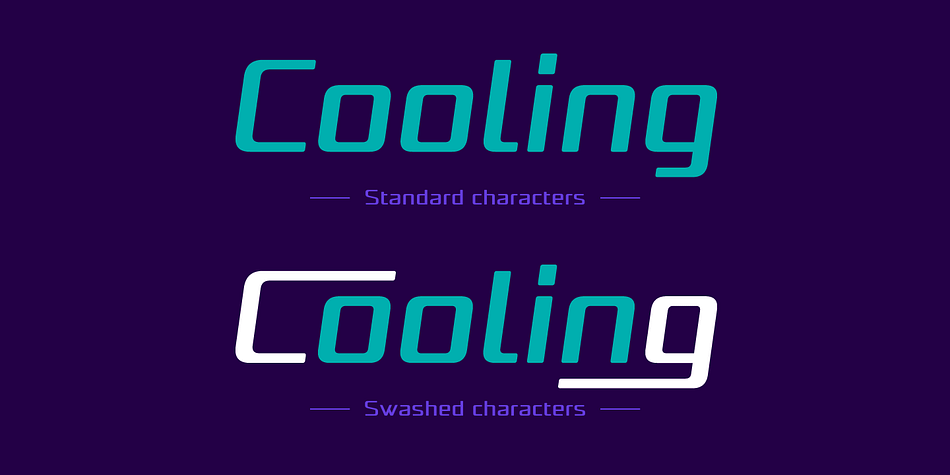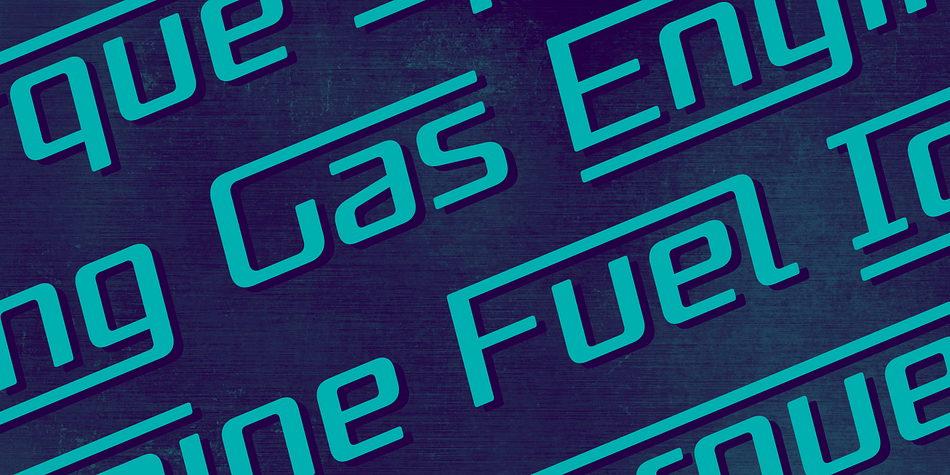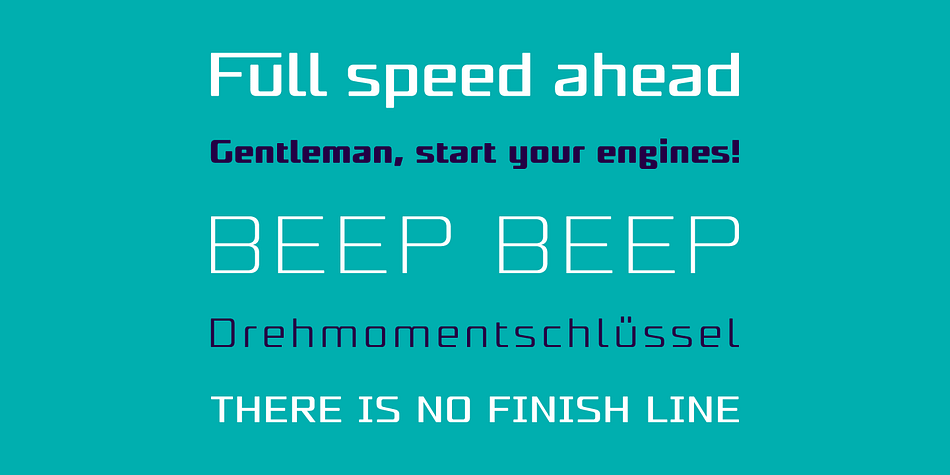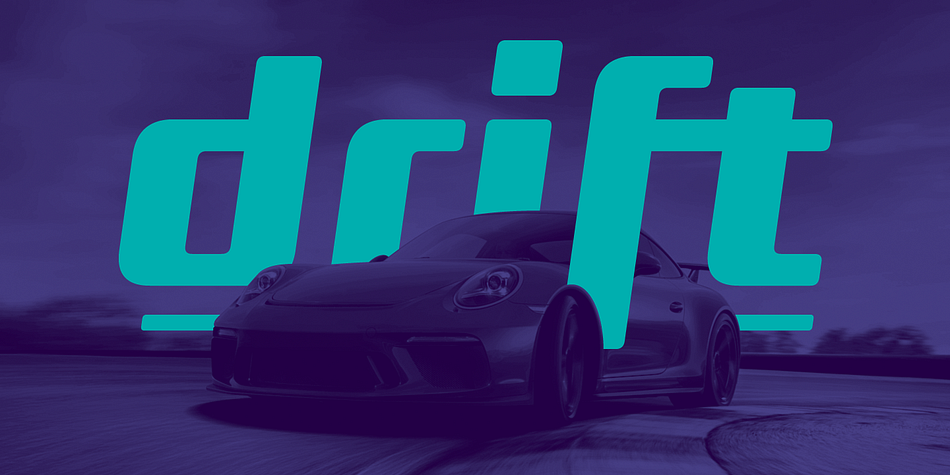
Designed by Pablo Balcells, Naftera is a display sans, sans serif and stencil font family. This typeface has ten styles and was published by Graviton.
Naftera font family has been designed for Graviton Font Foundry by Pablo Balcells in 2019. It is a mechanical, geometric sans serif typeface with display swashed characters and soft rounded endings that provide a trong but refined aesthetic. Naftera has been conceived to be most suitable for logos, headlines and display design pieces as well as short length text blocks.
Naftera consists of 10 styles, 8 of which containing small caps and glyph coverage for several language and 2 of which are free.
Foundry | Graviton |
Styles | Display Sans, Sans Serif, Stencil |
Designer | Pablo Balcells |